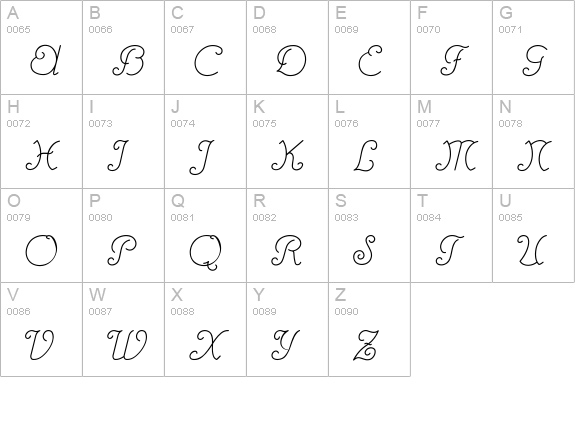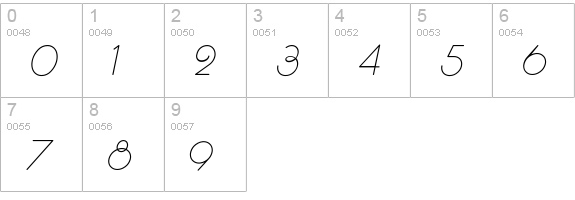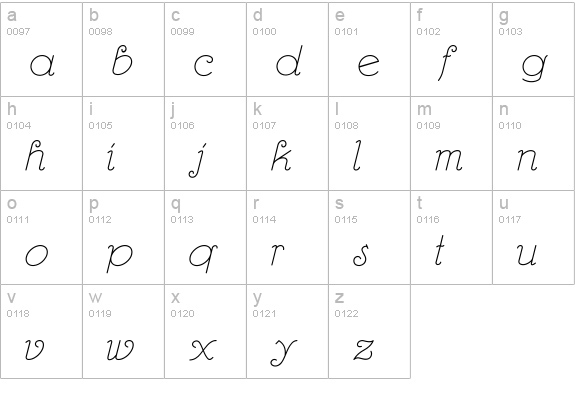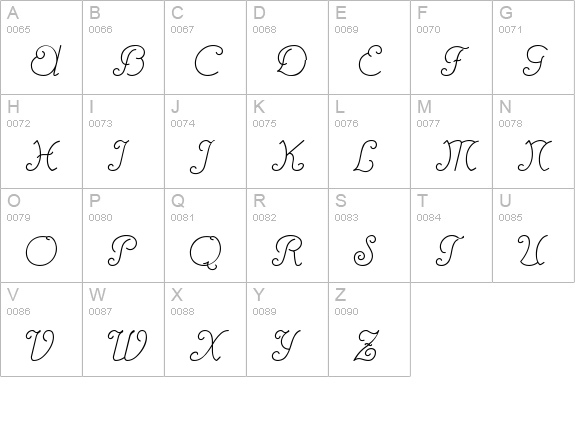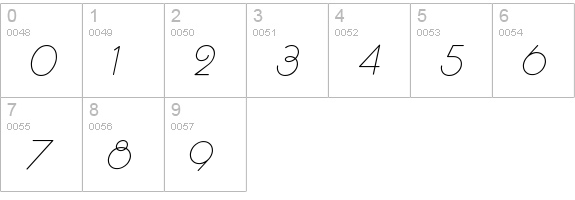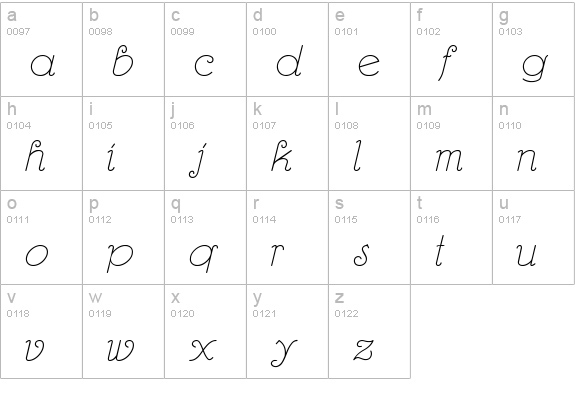
RhumbaScript Font Details
Introducing RhumbaScript font, a beautifully crafted typeface that effortlessly blends elegance and playfulness. This font is the perfect choice for adding a touch of sophistication to your designs, while still maintaining a sense of whimsy and charm. RhumbaScript font features intricate letterforms with graceful curves and stylish swashes, giving your text a sense of movement and flow. Whether you're designing wedding invitations, branding materials, or any other project that calls for a touch of elegance, this font will surely impress. One of the best things about RhumbaScript font is that it is completely free! Yes, you heard that right. This stunning font is freely available to download at FontsMarket.com. Now you can add a touch of luxury to your designs without breaking the bank. With its wide range of alternate characters and ligatures, RhumbaScript font provides endless possibilities for creating unique and eye-catching designs. Whether you want to evoke a vintage feel or bring a modern twist to your projects, this font has got you covered. The versatility of RhumbaScript font is further enhanced by its extensive language support, allowing you to use it in various international projects. So, whether you're designing for English, French, German, Spanish, or any other language, this font will seamlessly adapt to your needs. Don't miss out on the opportunity to enhance your designs with the captivating beauty of RhumbaScript font. Download it now for free at FontsMarket.com and let your creativity take flight.